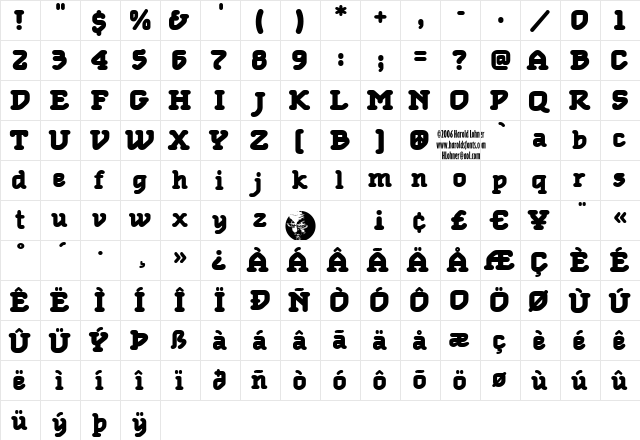
Foam Bold Regular Font Preview
Foam Bold Regular
Foam Bold Regular Font Details
Design Context for Foam Bold Typeface
Foam Bold offers clean, dependable letterforms without strong stylistic allegiance, making it a practical choice for designers who need flexibility. The heavy weight commands attention and anchors typographic hierarchies.